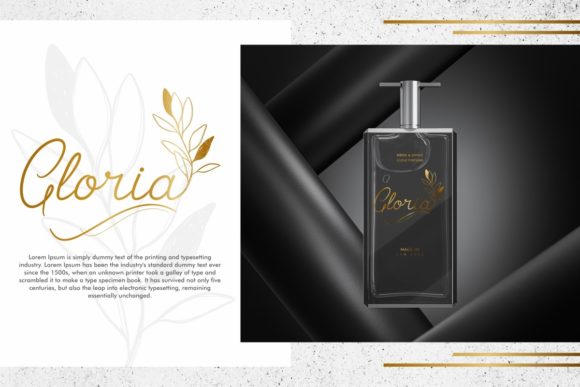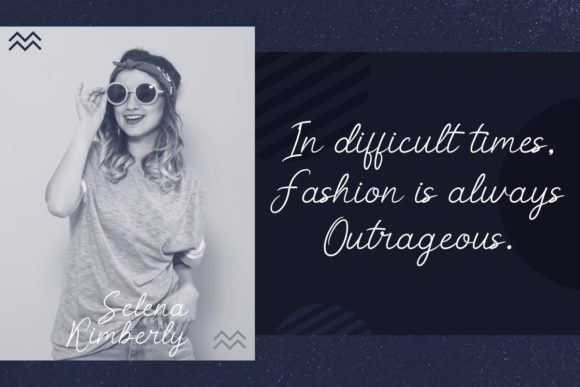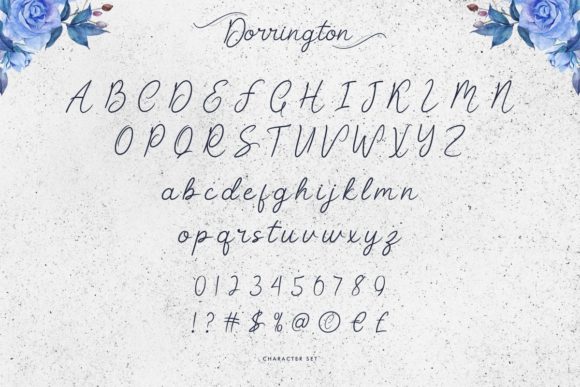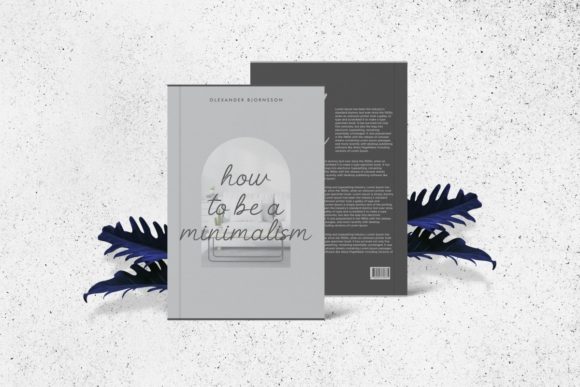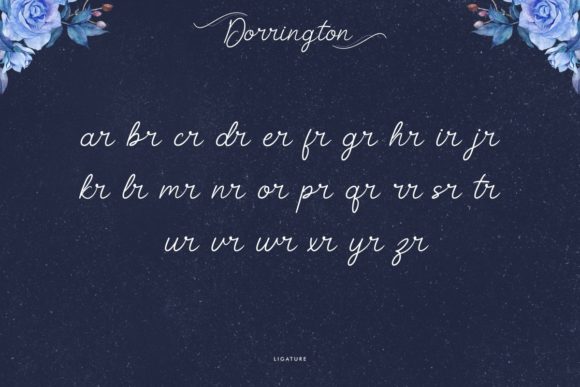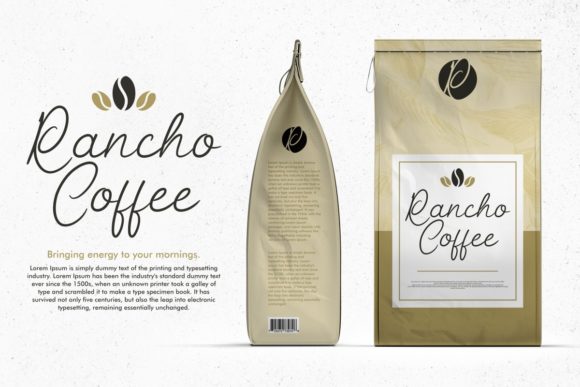
Introduction to Dorrington Font
Remember the rush of excitement when you stumble upon the perfect design element for your creative project? It’s like finding a hidden treasure that elevates your entire vision. For designers, this moment is priceless. And, I’m about to share with you a game-changing discovery that will make your design projects shine: the Dorrington Font.
As a versatile and high-quality design resource, the Dorrington Font is a must-have for any creative endeavor. Its delicate and light handwritten style adds a touch of luxury and sophistication, making it perfect for branding, typography, and even digital art. Whether you’re working on a high-end project or a simple design concept, this font will bring a stunning impact that will leave a lasting impression.
Key Features of Dorrington Font
- High-quality, elegant script font ideal for creative projects
- Features a unique, hand-drawn style with subtle flair, perfect for adding a touch of sophistication to any design
Honest Review: Dorrington Font
I recently had the chance to work with the Dorrington Font on a creative project, and I must say it’s been a game-changer. This font is a fantastic addition to any design resource, offering a unique and high-quality look that elevates any text-based element.
- Unique and high-quality design
- Perfect for titles, headings, and body text
- Works well with transparent backgrounds
- ⚠️ Limited character set, may not be suitable for long blocks of text
- ⚠️ May not be compatible with all font rendering systems
Overall, I’m thoroughly impressed with the Dorrington Font. It’s a fantastic addition to any design resource, and I would highly recommend it to anyone looking to add a touch of elegance and sophistication to their creative project.
To get the most out of the Dorrington Font, experiment with different font sizes and styles to find the perfect combination for your design. You can also use the font in conjunction with other design elements to create a cohesive and visually appealing design.
The Dorrington Font is commonly used in wedding invitations, business cards, and other professional documents. Its elegant design and transparent background make it perfect for adding a touch of sophistication to your designs.